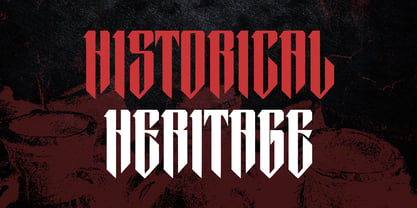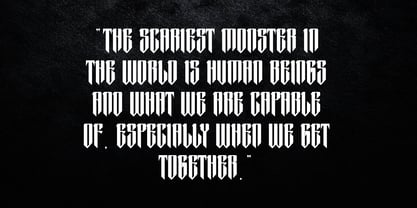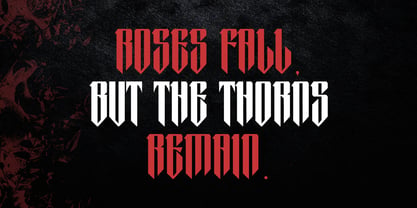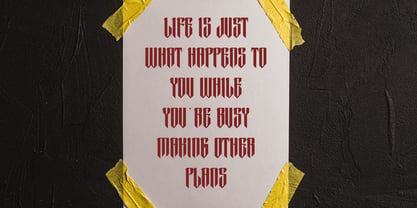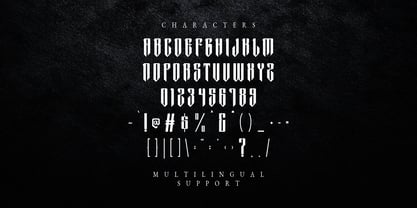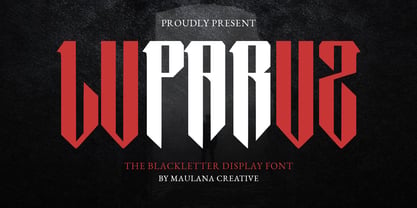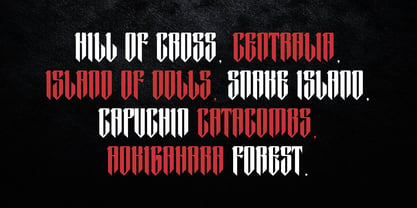
MC Luparuz
La familia tipográfica MC Luparuz fue diseñada por Gilang Maulana y publicada por Maulana Creative. MC Luparuz contiene 1 estilos. Más información sobre esta familia
Luparuz Blackletter Display Font. Heavy stroke and vintage character. To give you an extra creative work. Luparuz display font support multilingual language. This font is good for logo design, Social media, Movie Titles, Books Titles, a short text even a long text letter and good for your secondary text font with script or serif. Make a stunning work with Luparuz font.